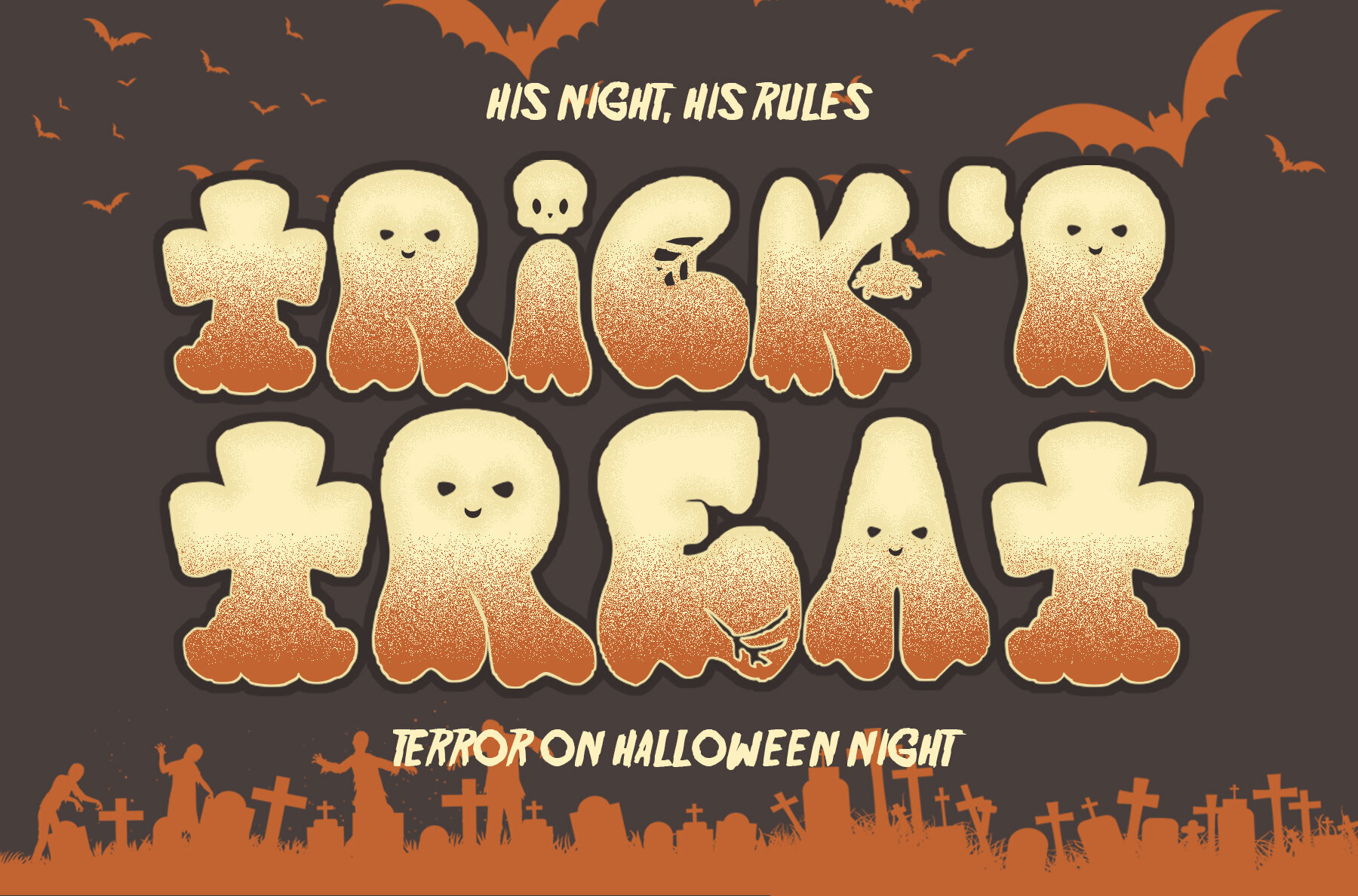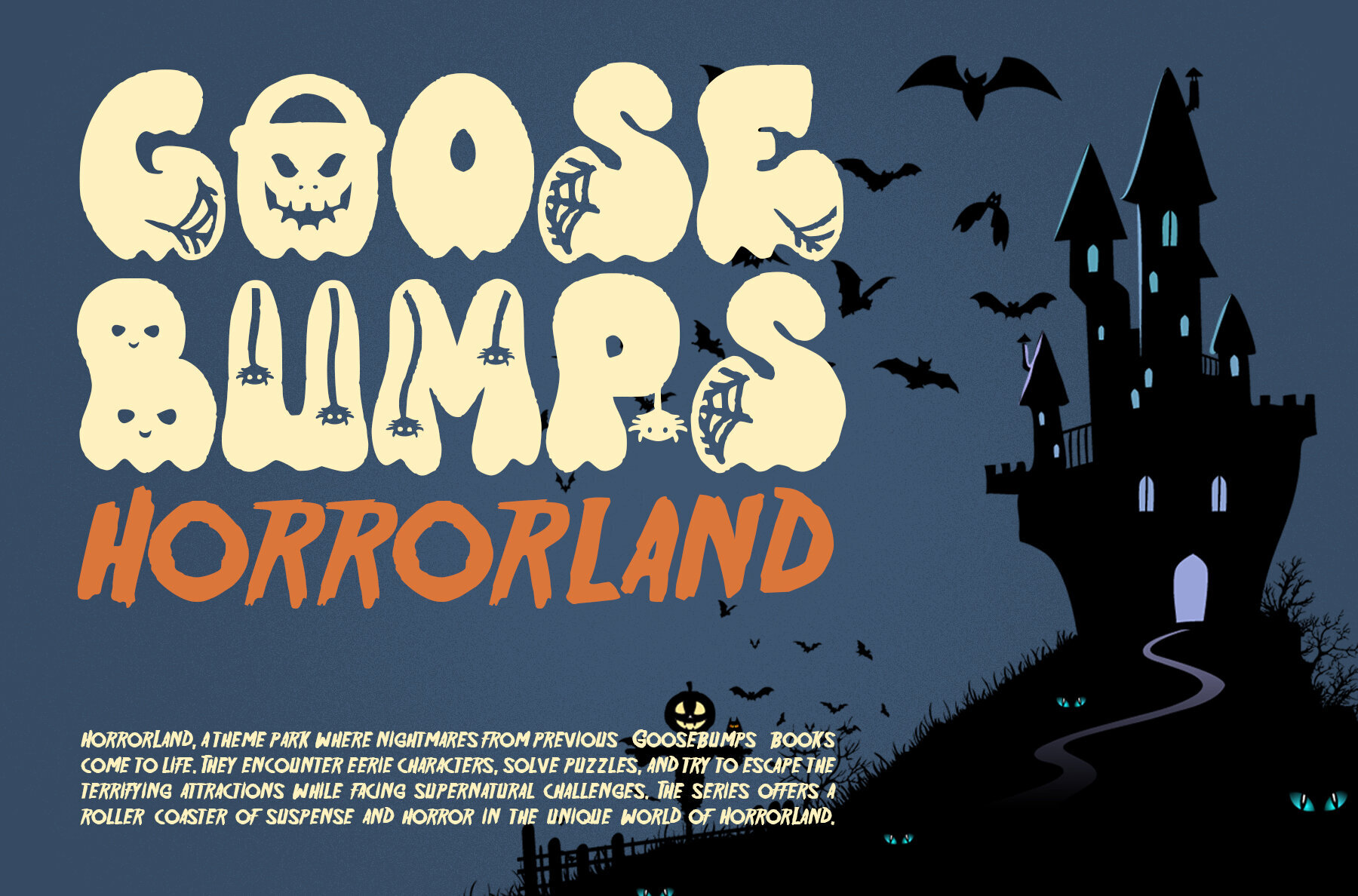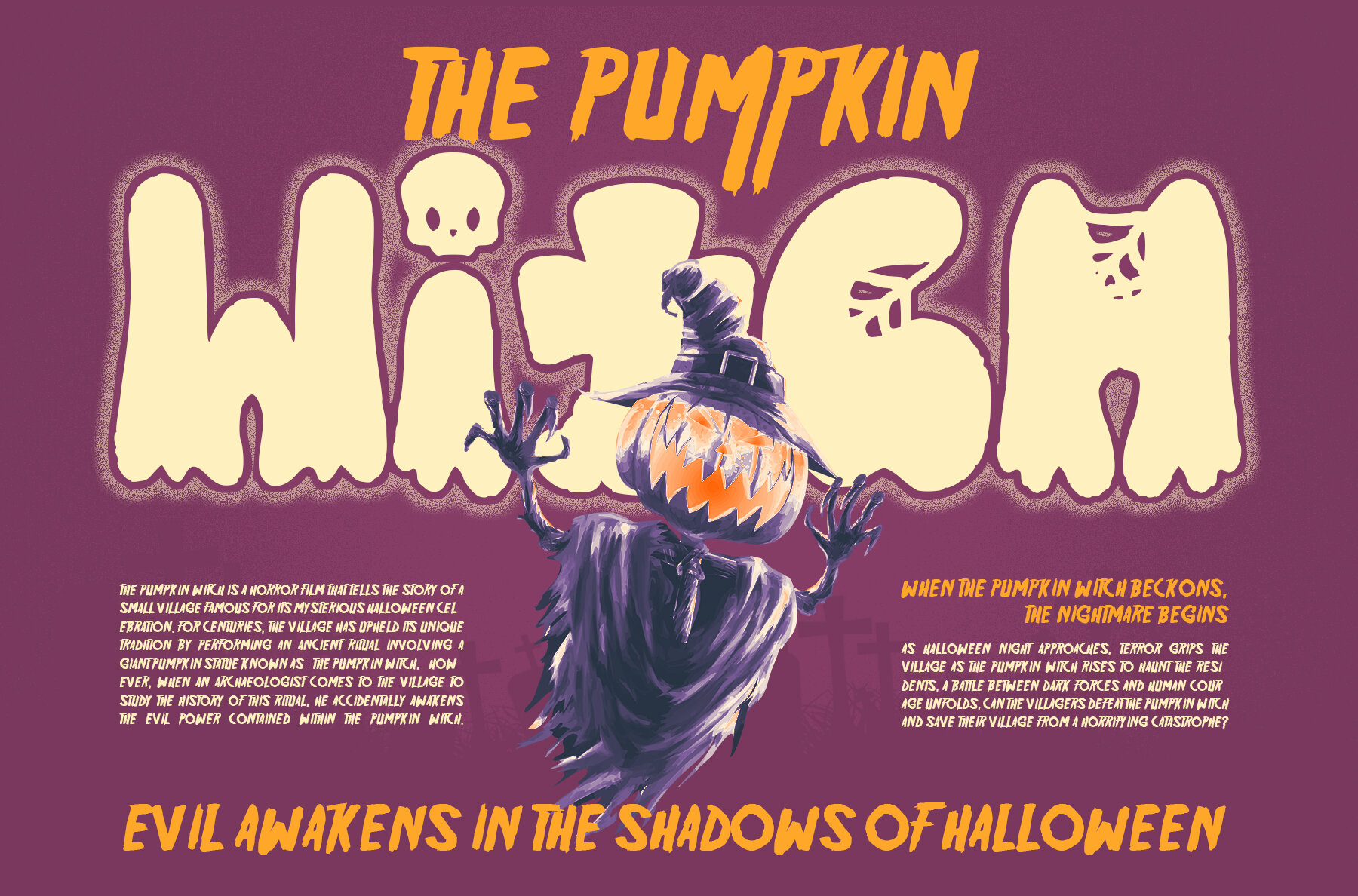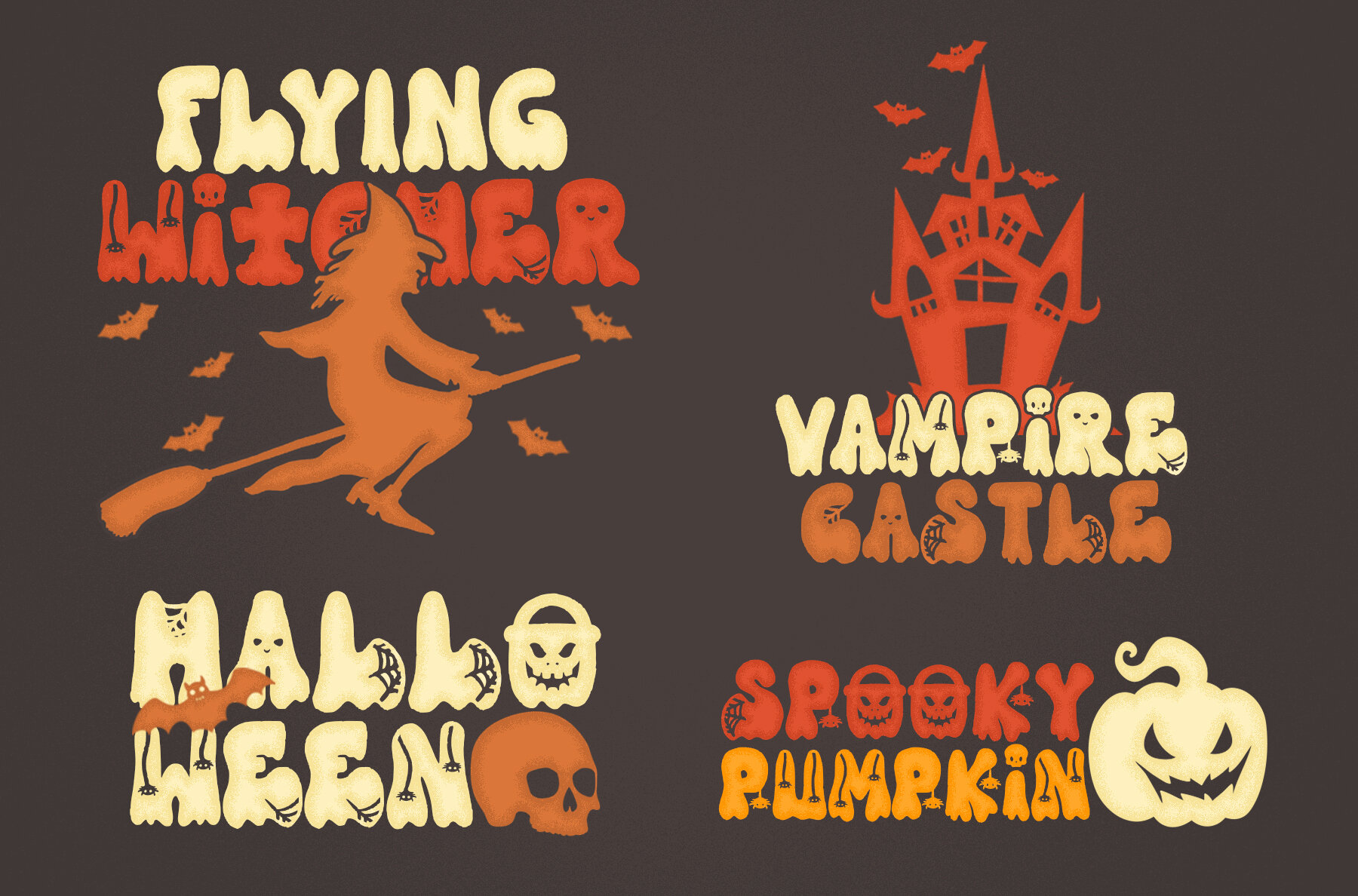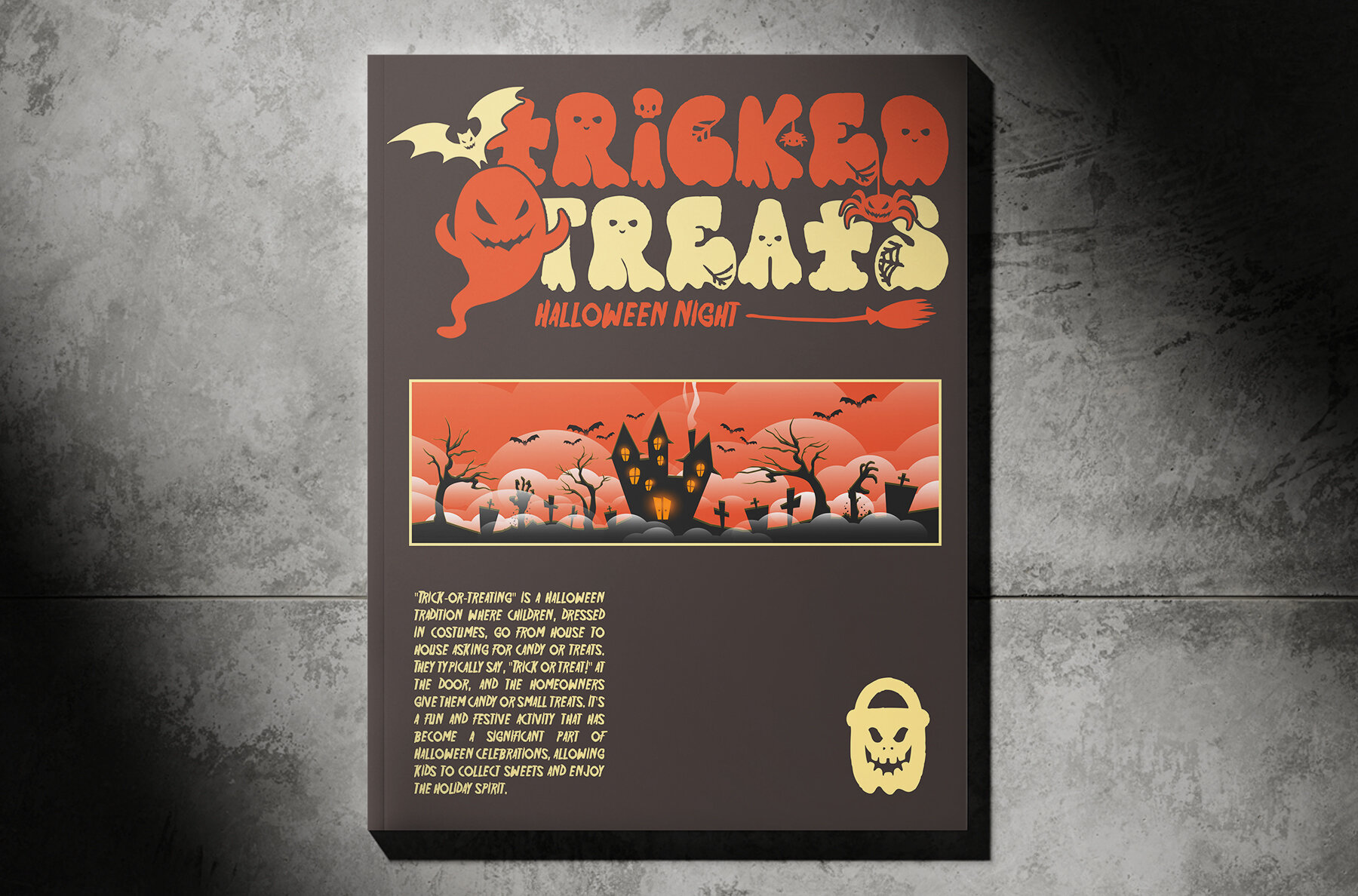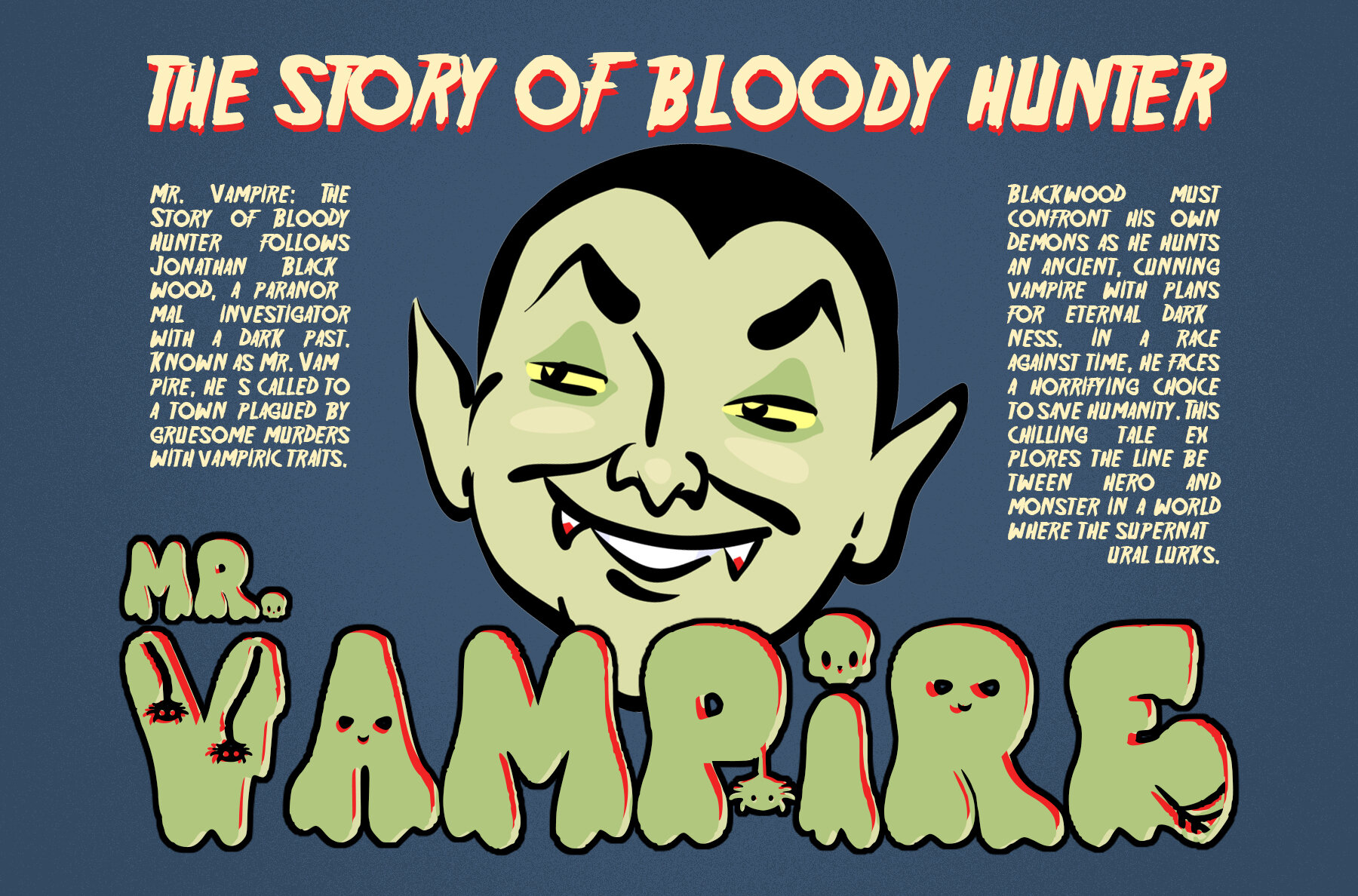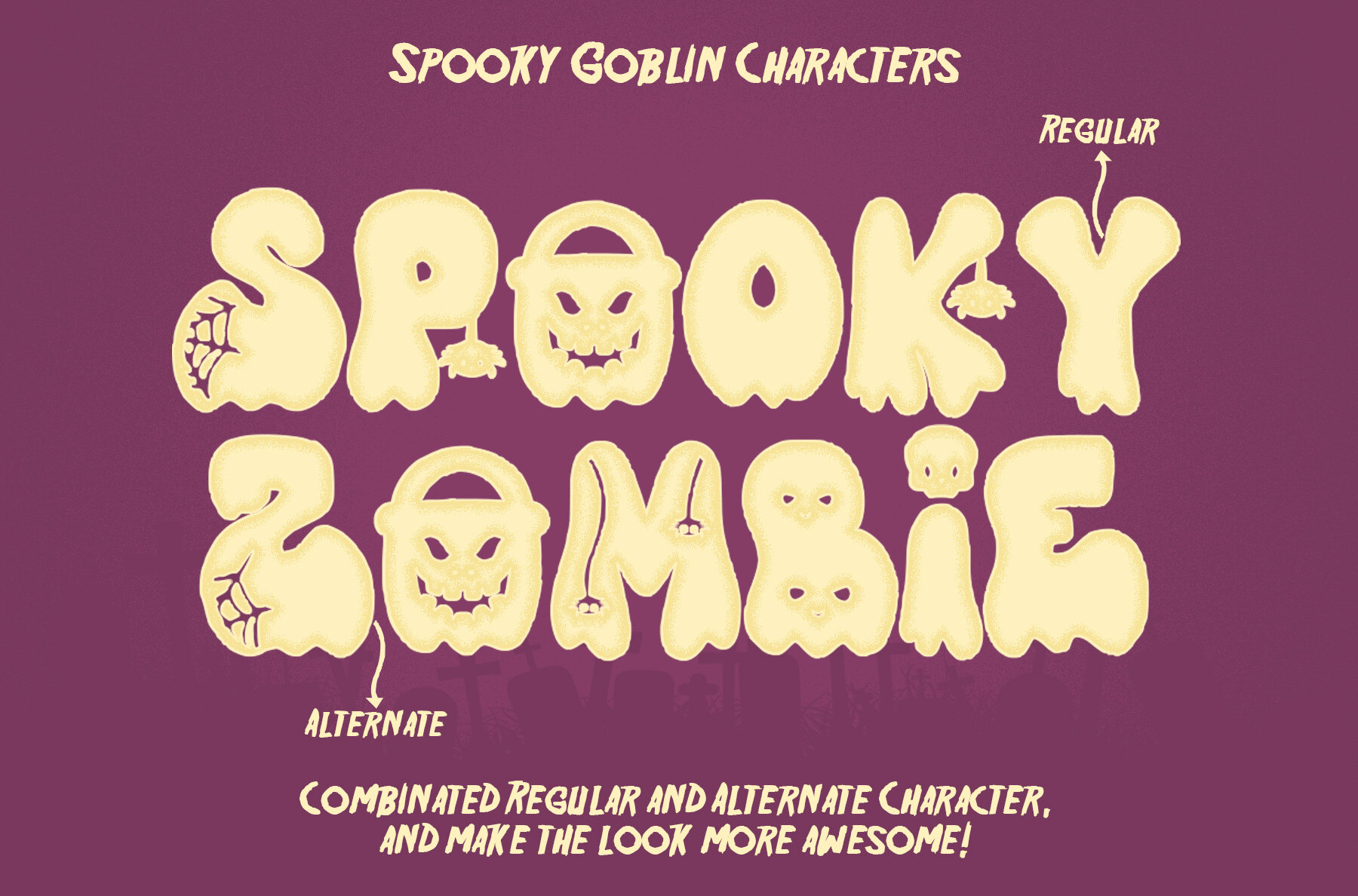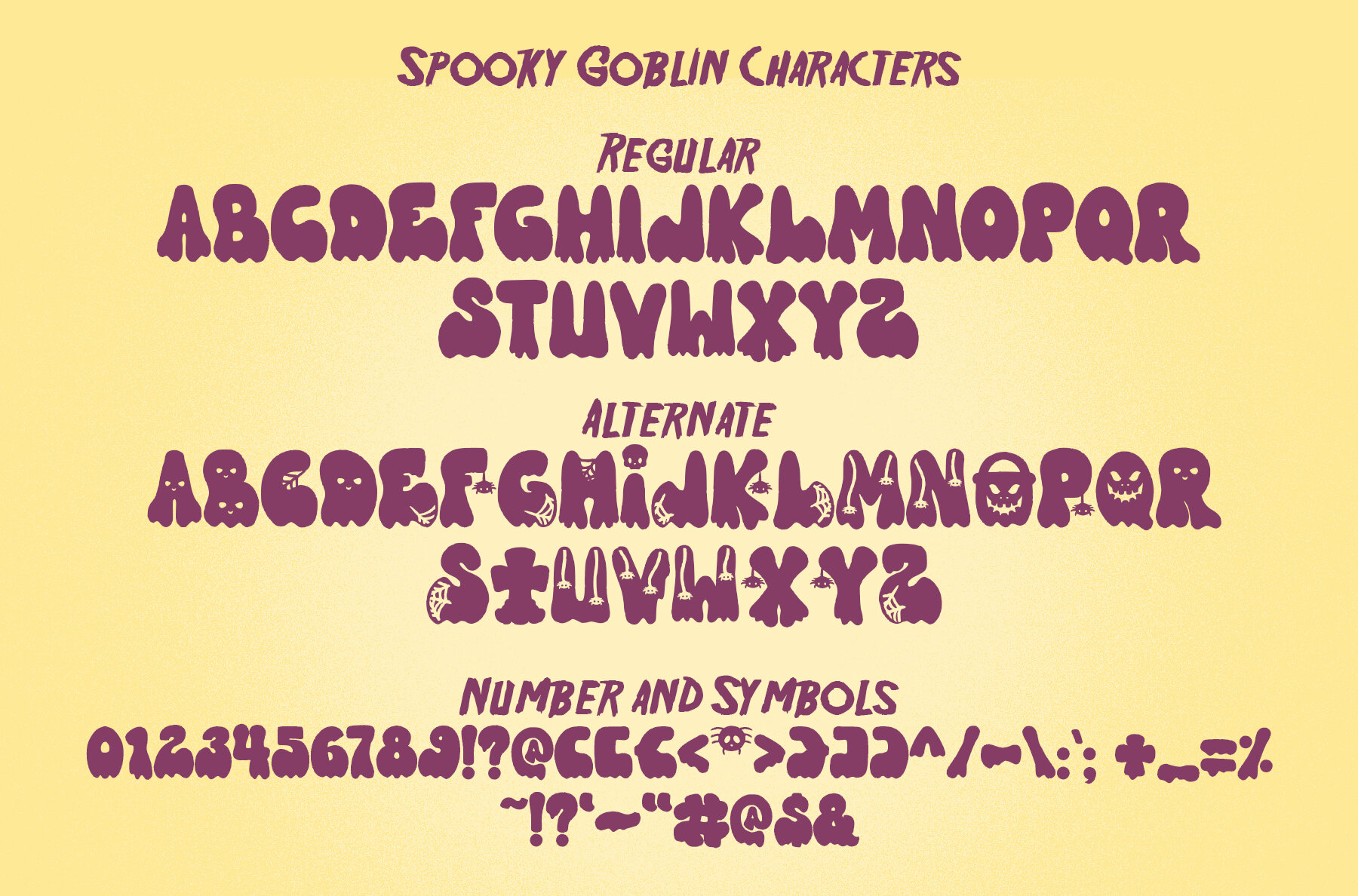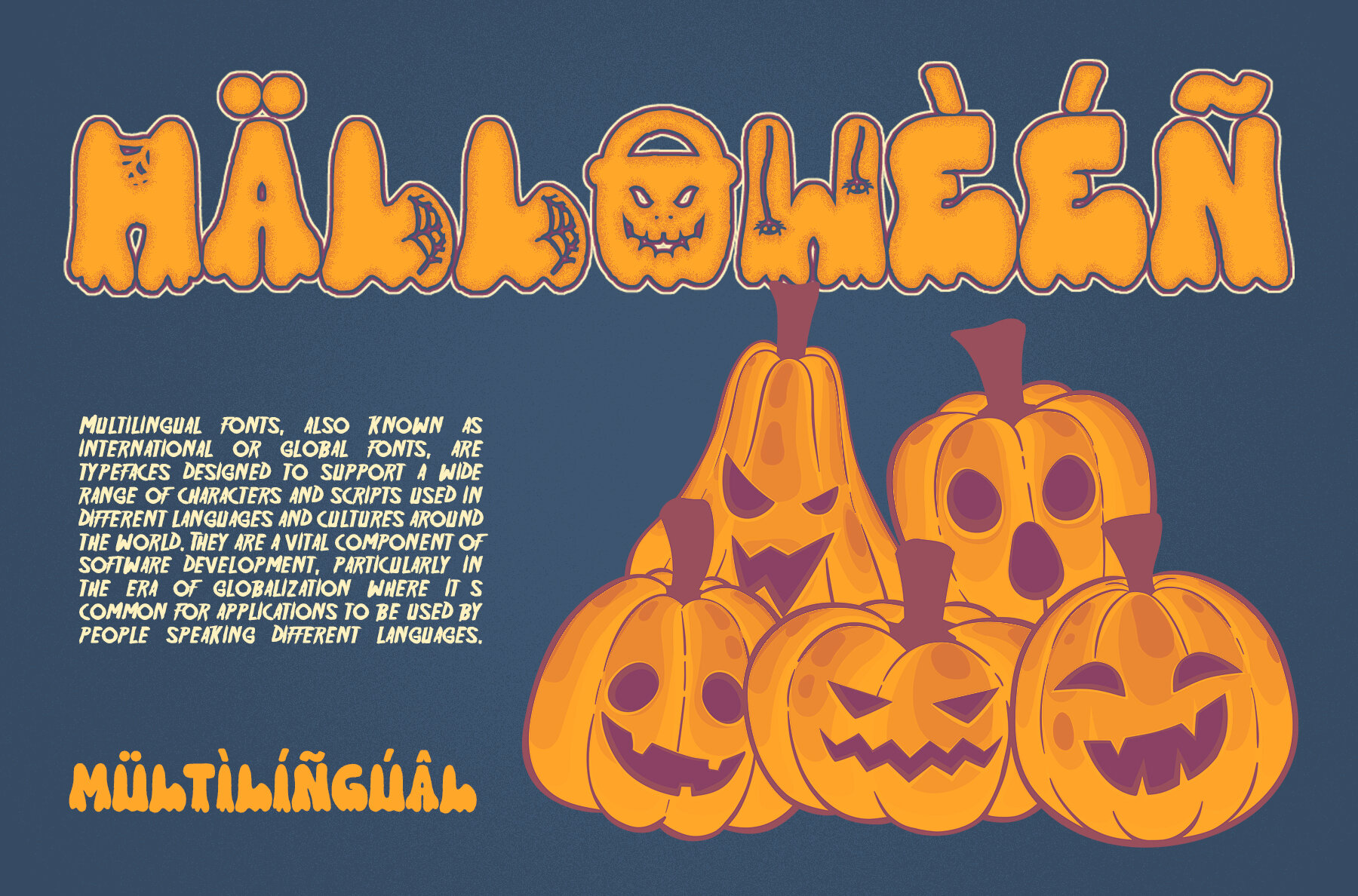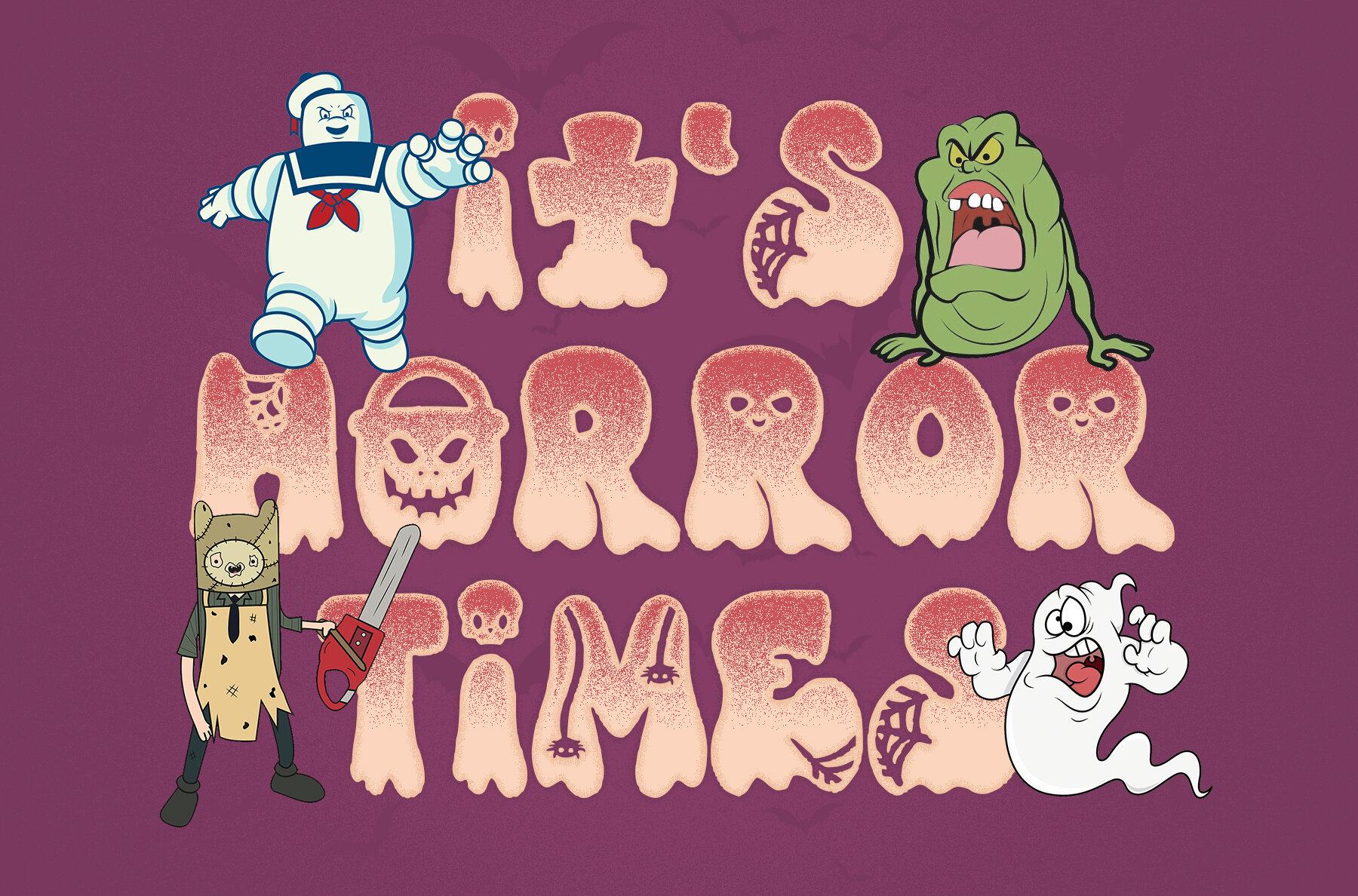
Spooky Treat Font
Spooky Treat
Spooky Treat delivers the ultimate Halloween font experience, designed to add an eerie vibe to your projects. Featuring a sinister dripping effect complemented by ghostly elements, spiders, and cobwebs, this font is your perfect companion for all things spooky. Spooky Treat is versatile and suitable for various creative projects. Whether you're crafting Cricut designs, creating themed t-shirts, planning Halloween invitations, making personalized mugs, or designing stickers and educational materials, this font adds a unique touch.Spooky Treat: A Chilling Halloween Event Font